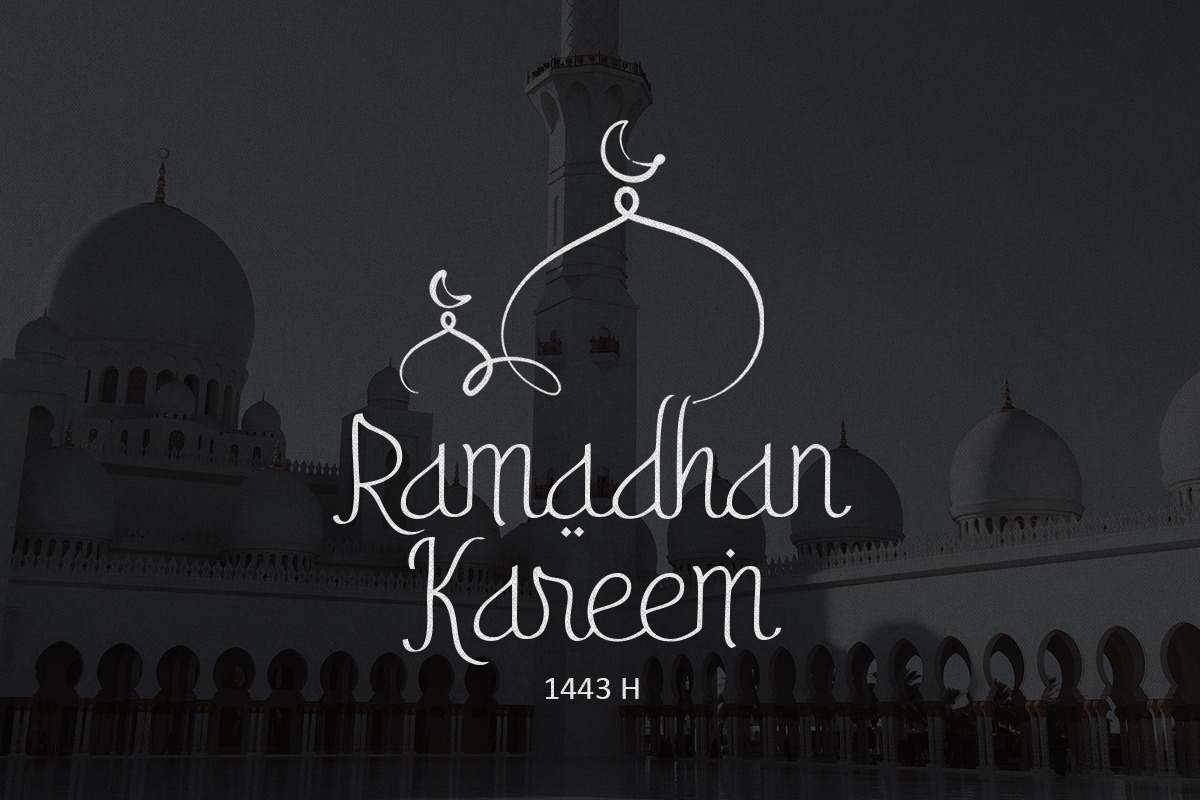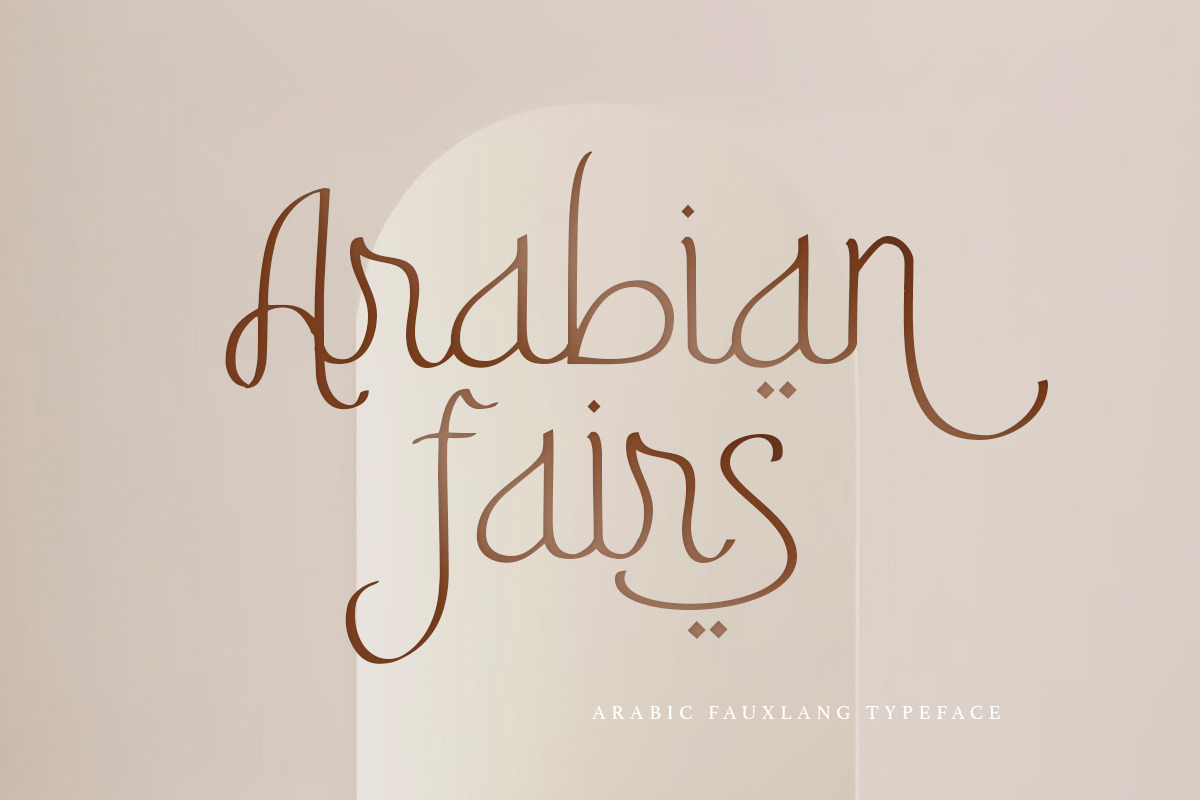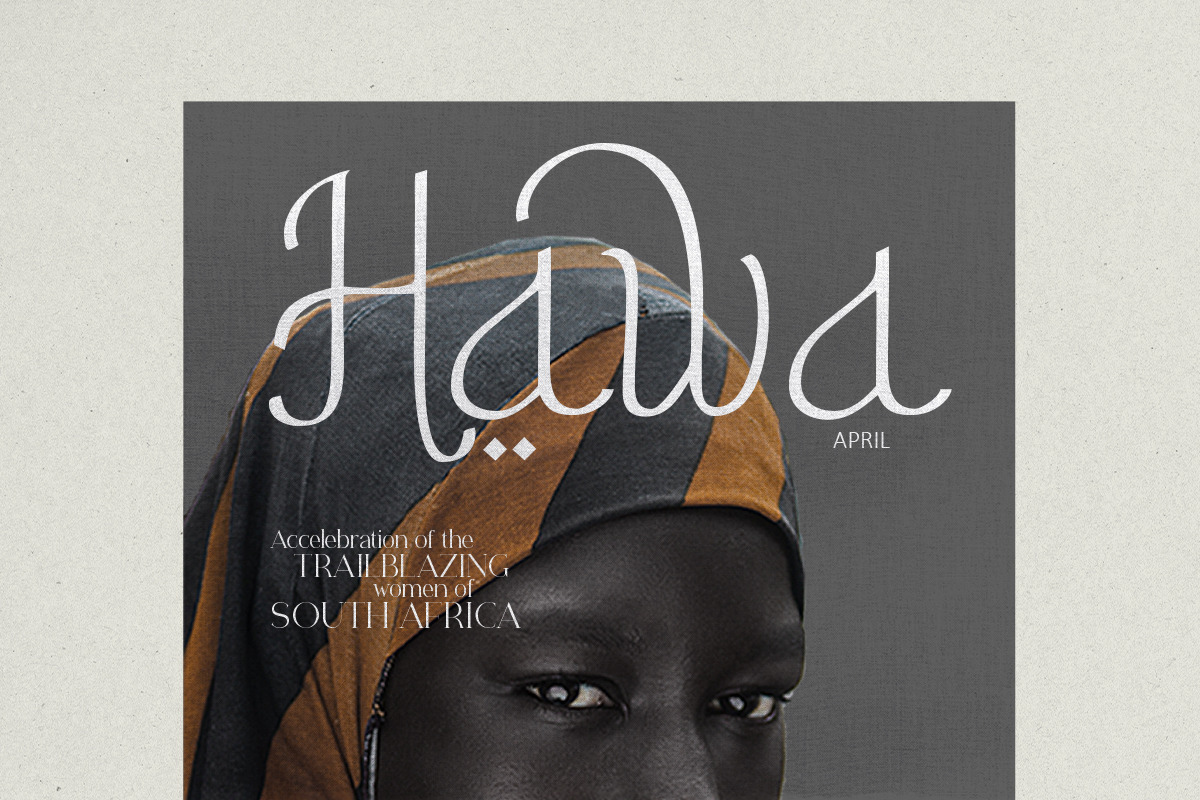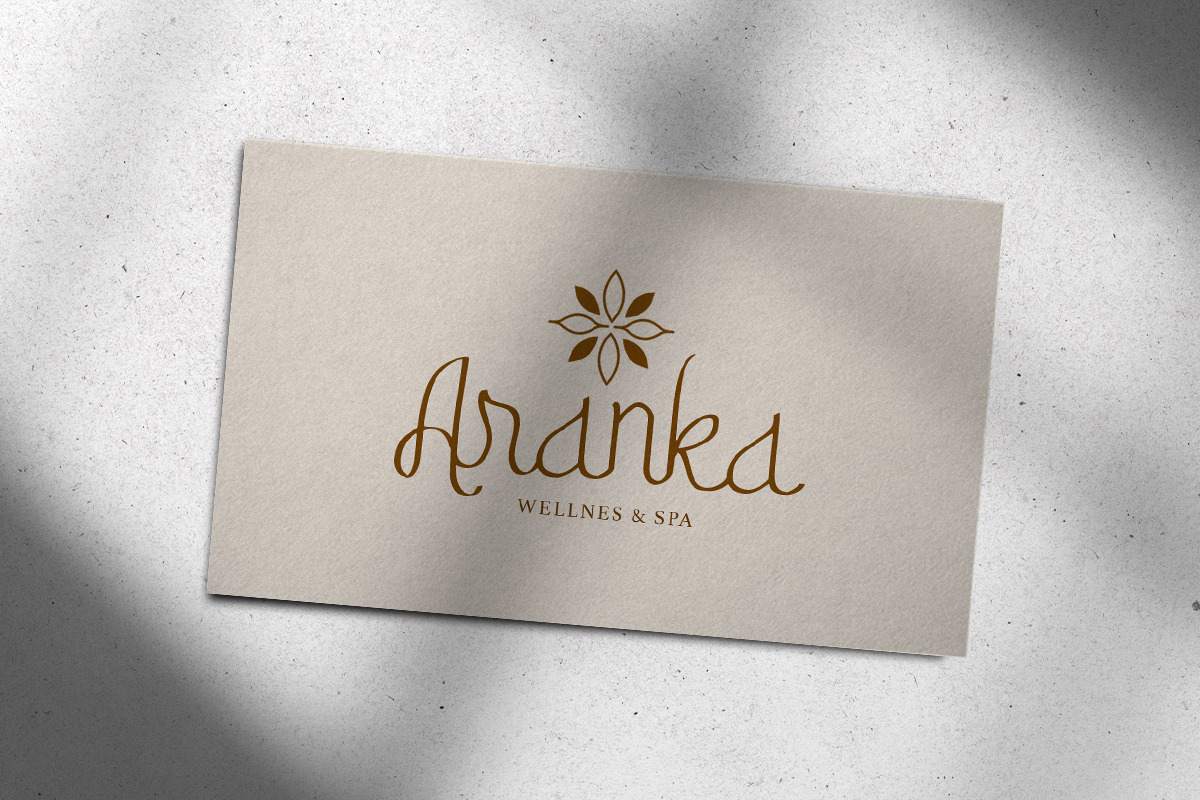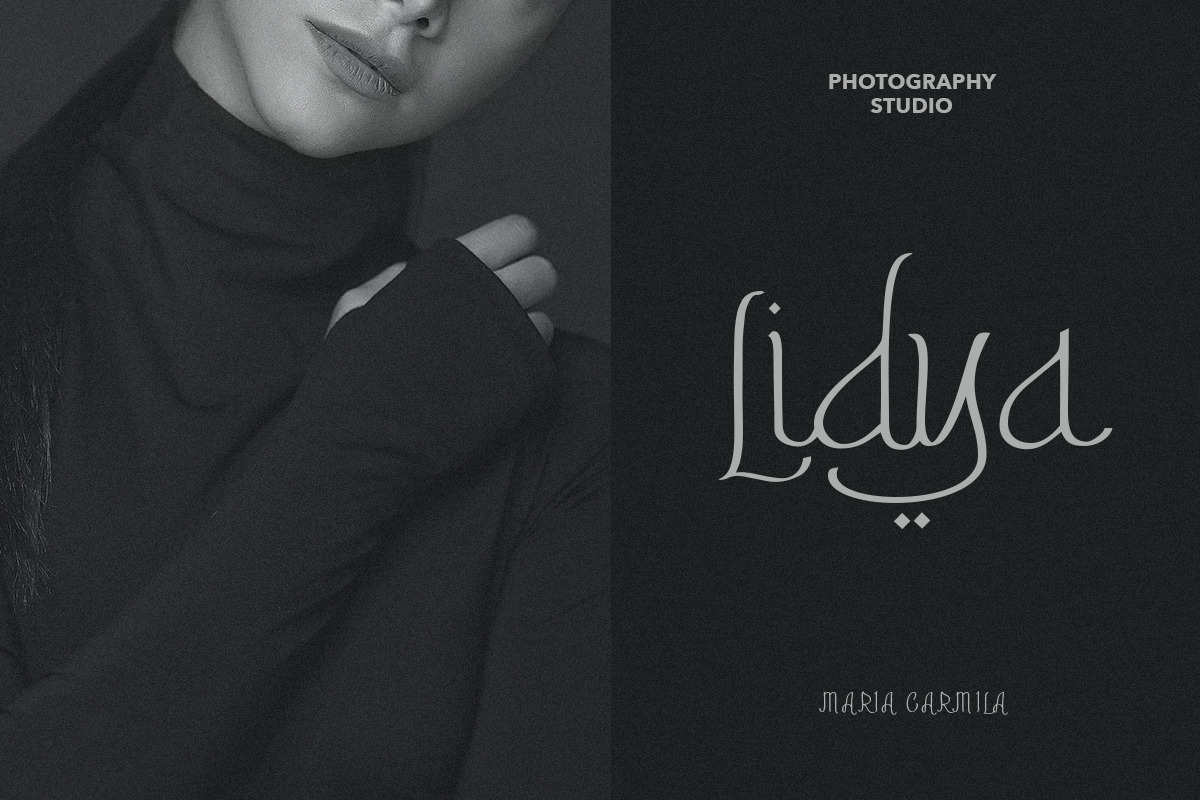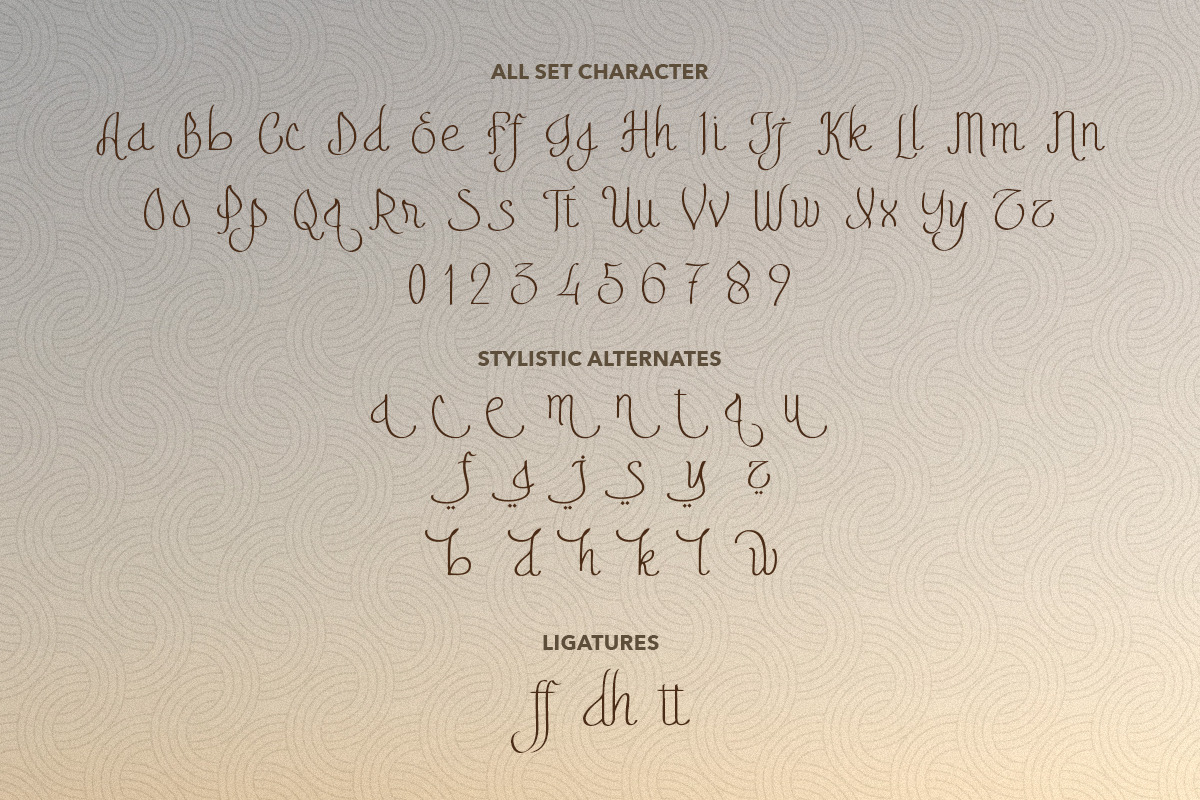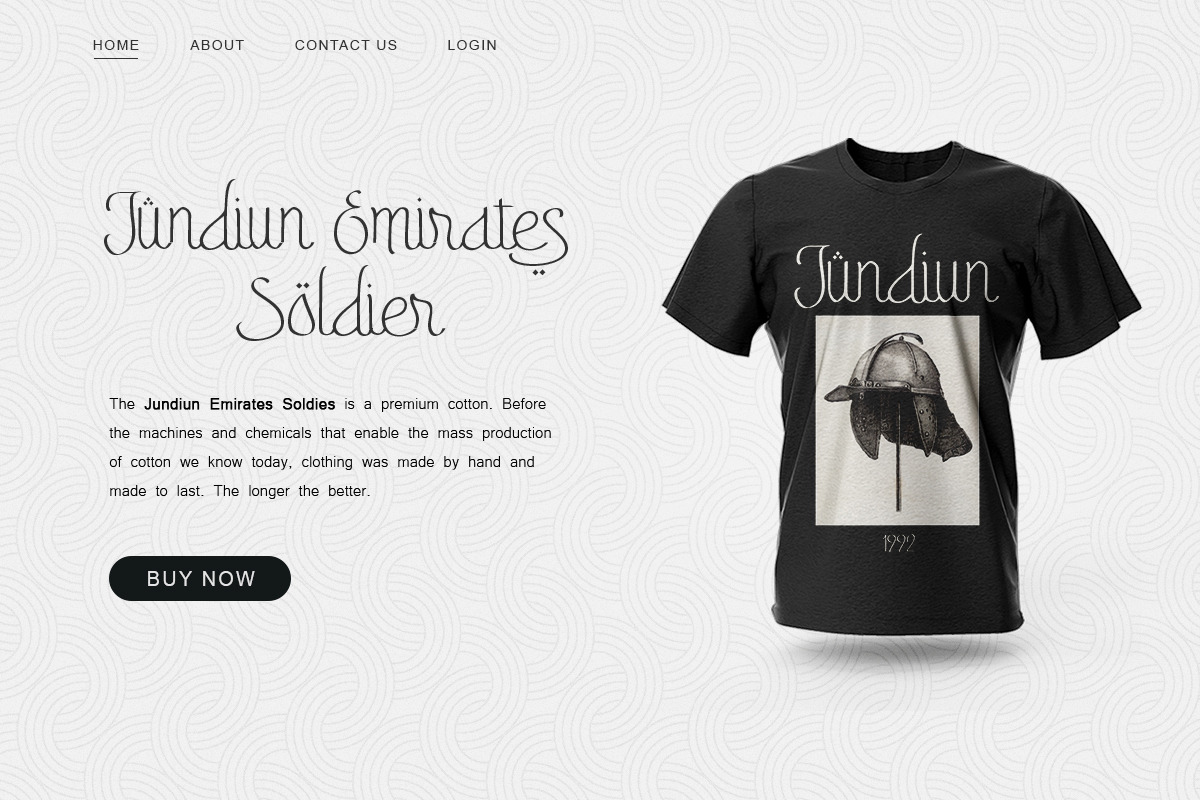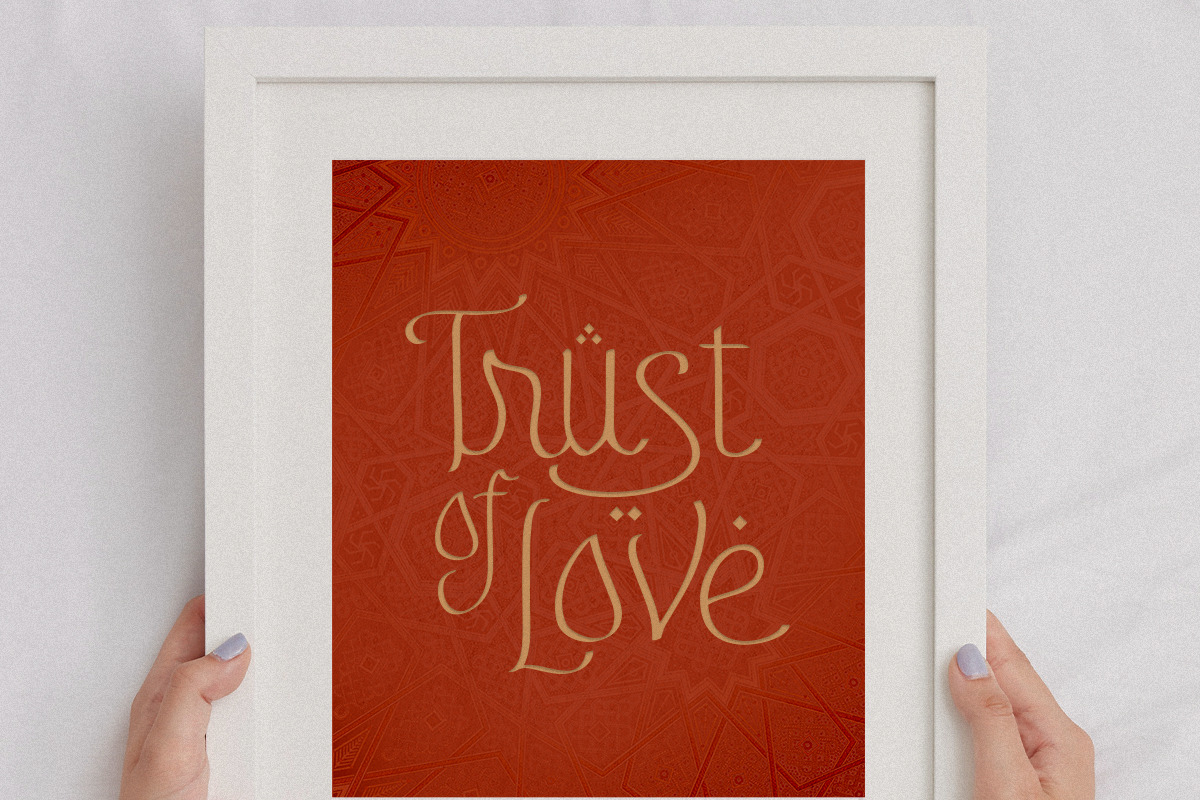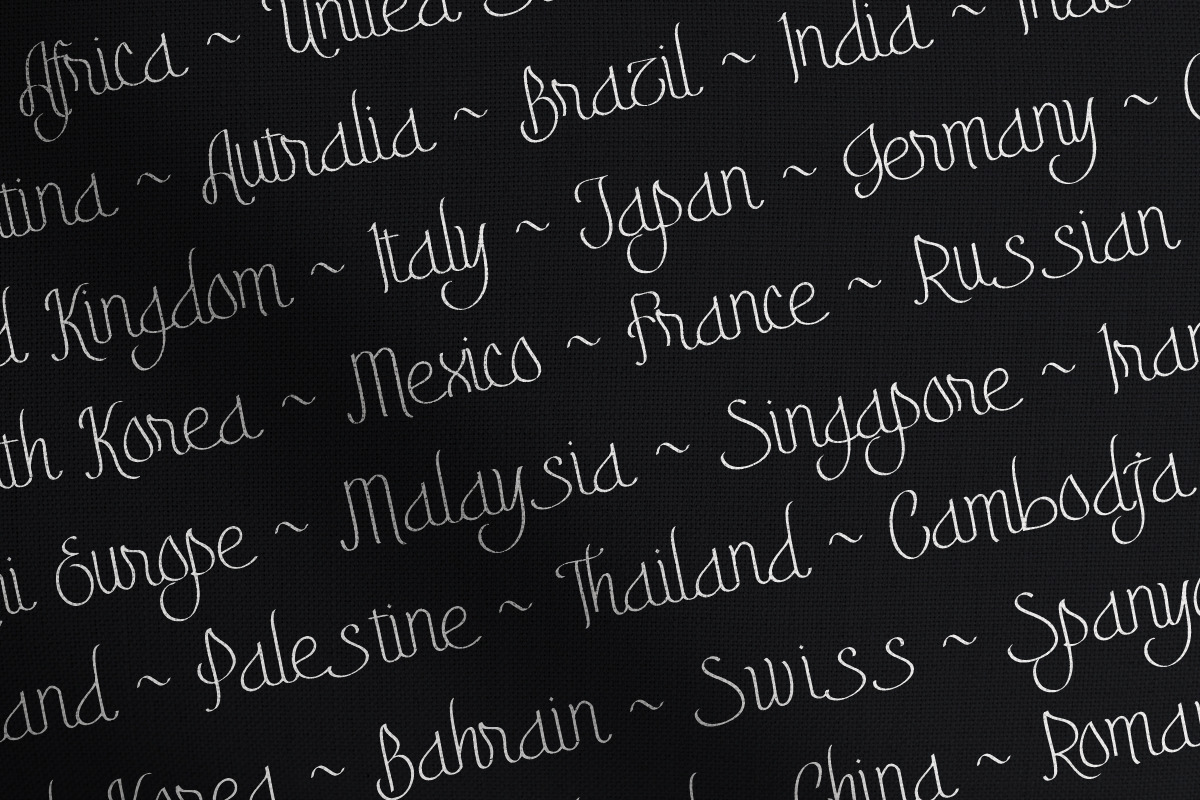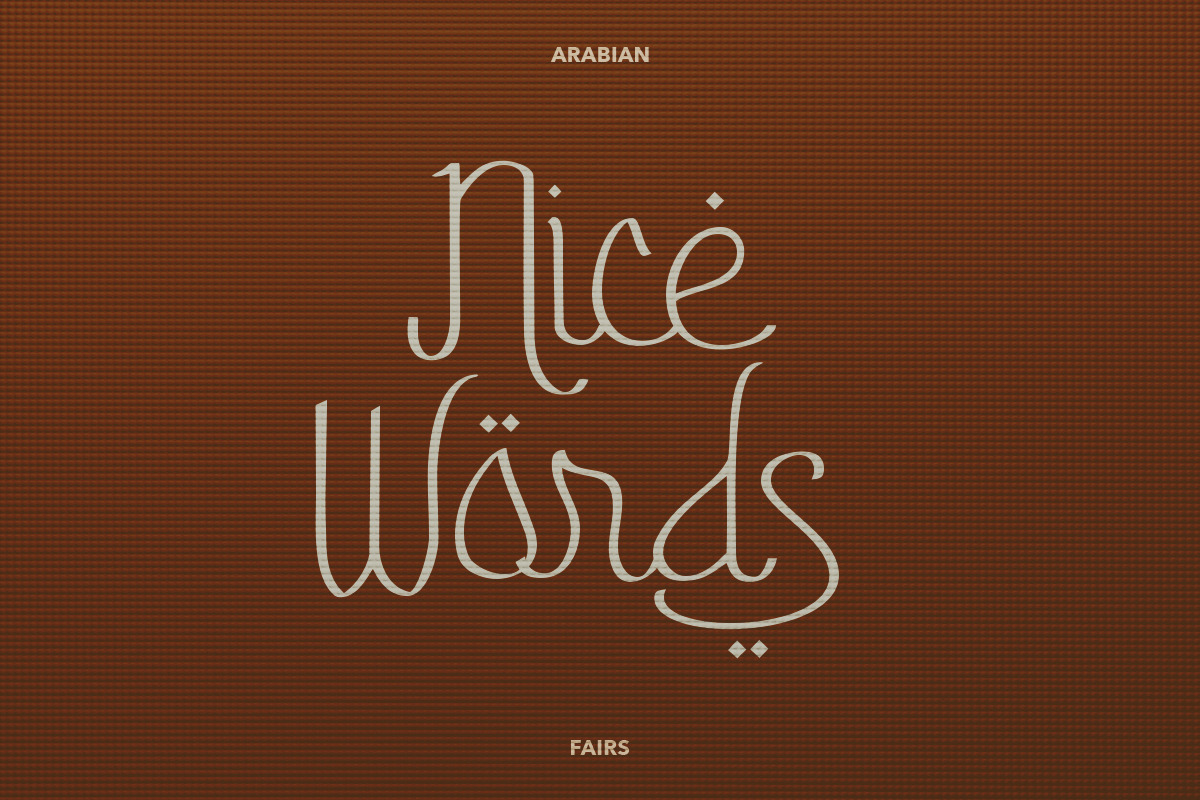
Arabian Fairs - Fauxlang Arabic Font
Introducing, Arabian Fairs, a delicate and minimalist Fauxlang arabic font!
Arabian Fairs is a light and minimal Fauxlang Arabic Font. Truly inspired by Arabic alphabet, this font will make your design looks more Arabian yet readable for everyone. You can use this fonts for any purpose such as branding, logo design, wedding invitations, or even occasional season such Ramadan and any Islamic Holiday. This font also include number, symbol and support multilingual.